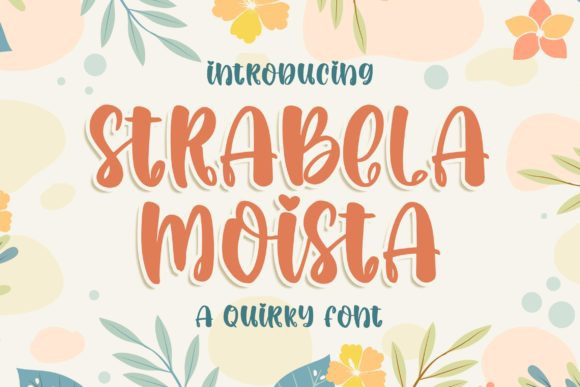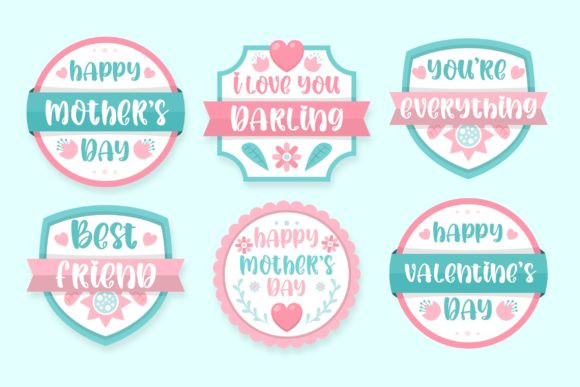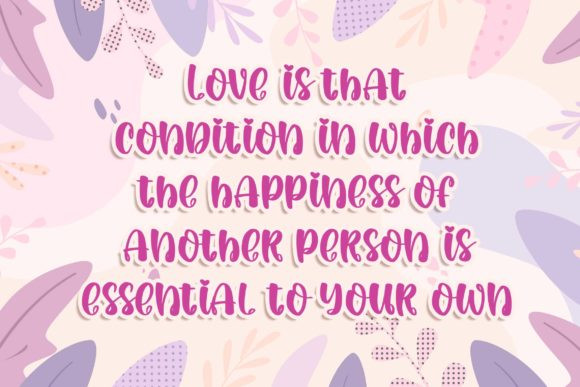
Strabela Moista Font
Strabela Moista is a cute and quirky display font. It will add an incredibly joyful touch to your designs. Add this beautiful display font to each of your creative ideas and notice how it makes them stand out!